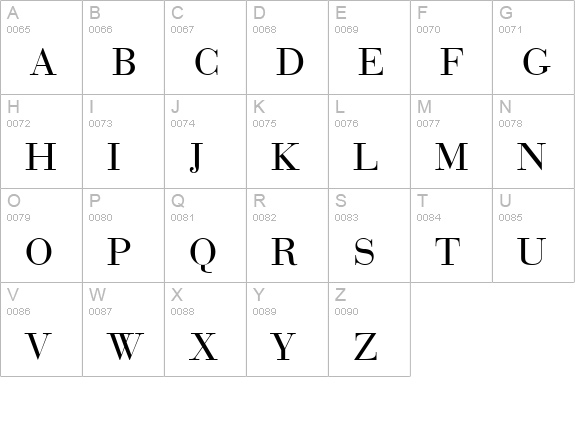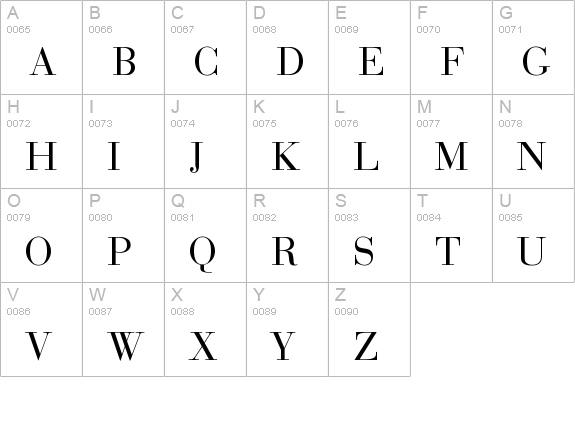
Bodoni Recut SSi is a timeless and elegant font that exudes sophistication and modernity. With its clean lines and classic design, this typeface is perfect for adding a touch of refinement to any project. The Bodoni Recut SSi font features sharp serifs and precise strokes, giving it a sleek and polished appearance that is sure to make a statement. This versatile font is suitable for a wide range of applications, from print materials to digital designs. Whether you're creating a logo, designing a poster, or typesetting a book, Bodoni Recut SSi offers the perfect balance of style and readability. And the best part? Bodoni Recut SSi is available for free download at FontsMarket.com. You can easily access this stunning font and elevate your designs without breaking the bank. Don't miss out on this opportunity to enhance your projects with the timeless beauty of Bodoni Recut SSi.